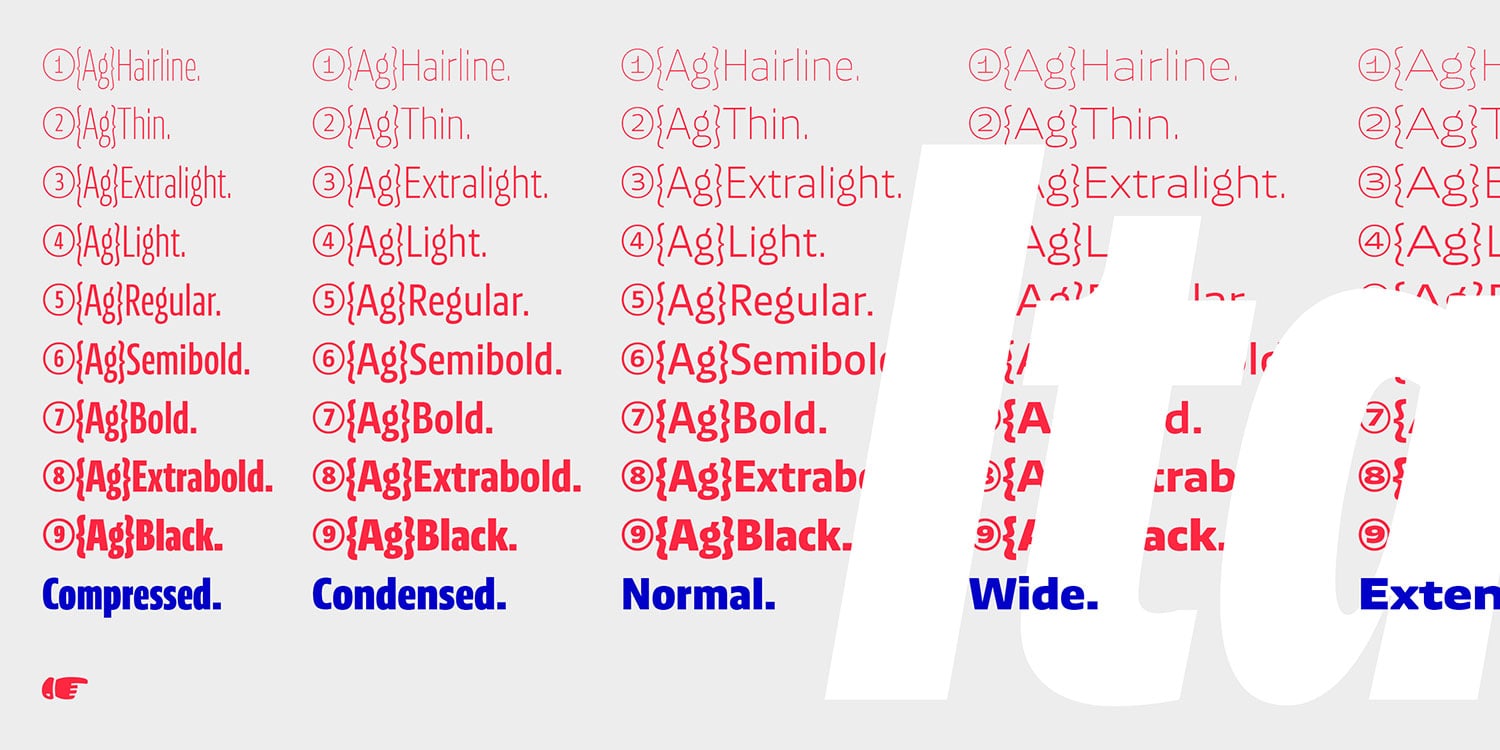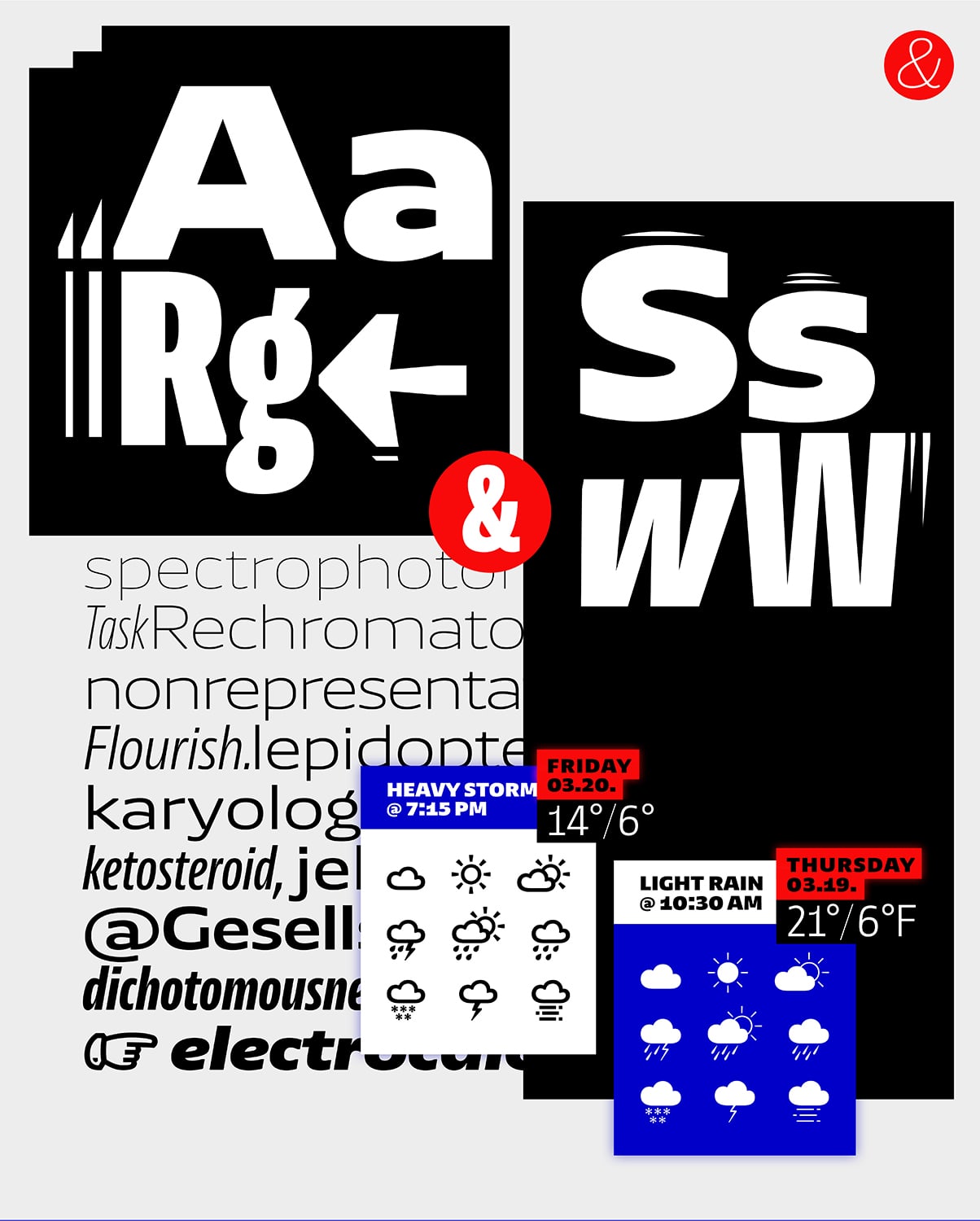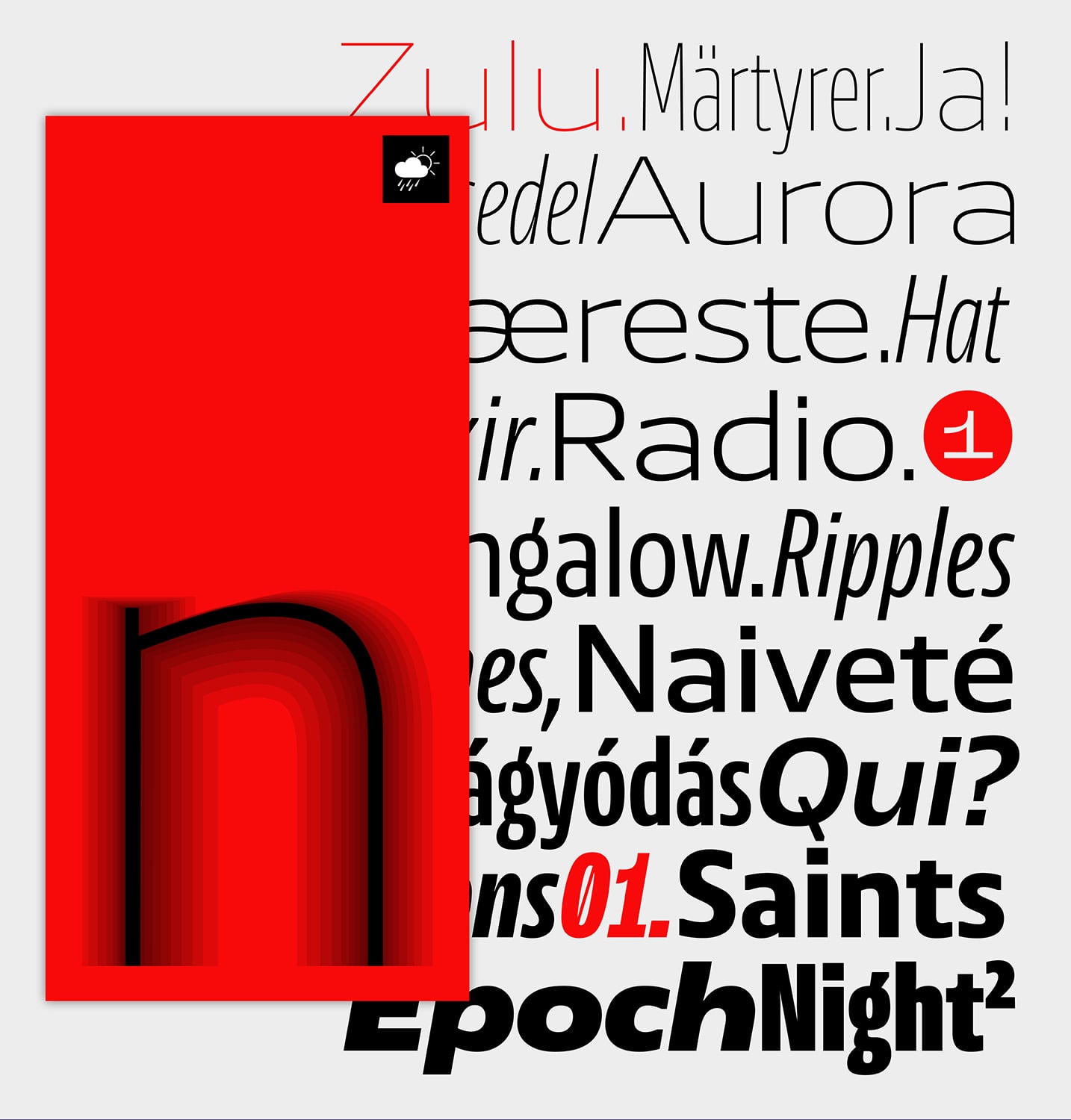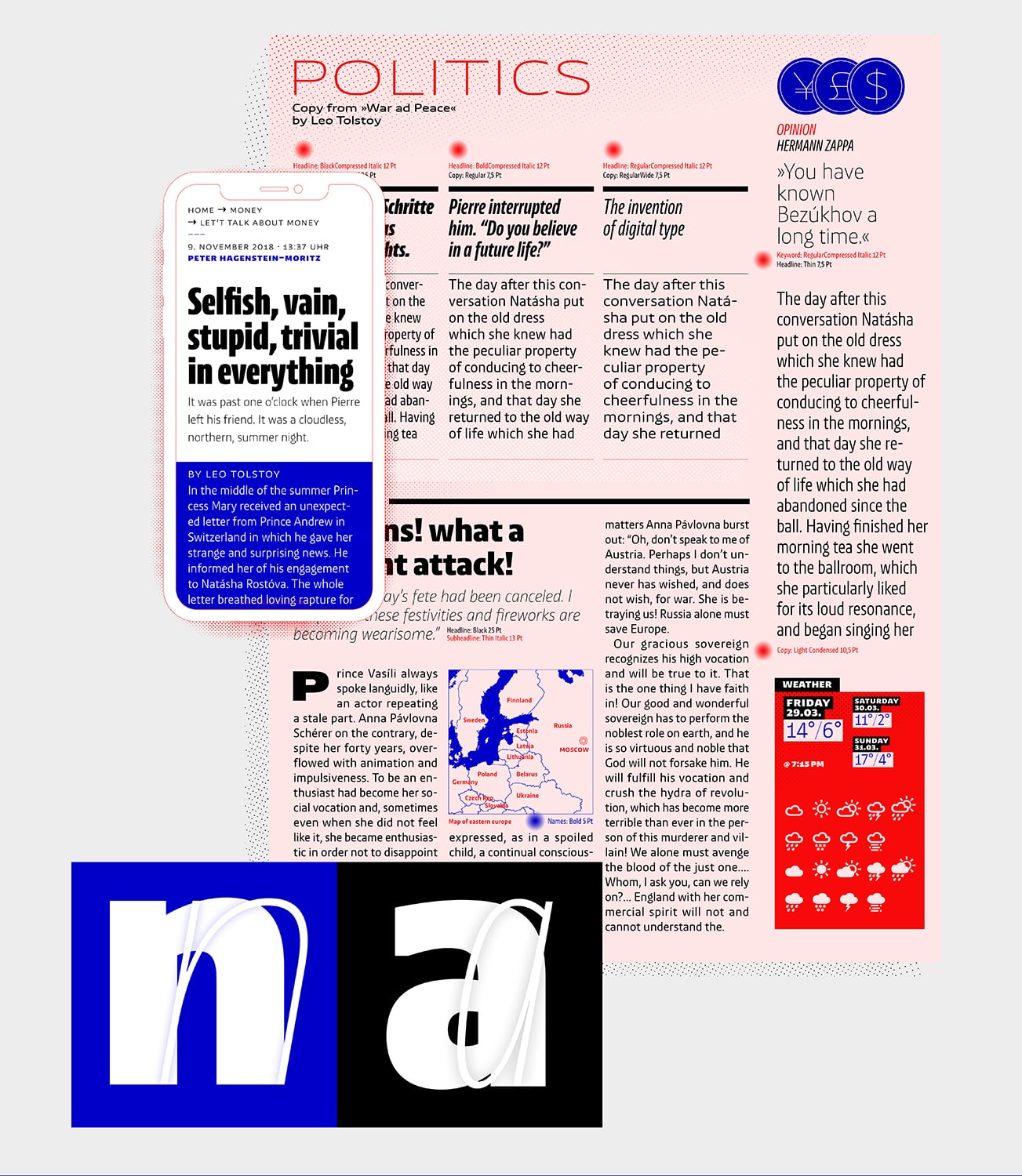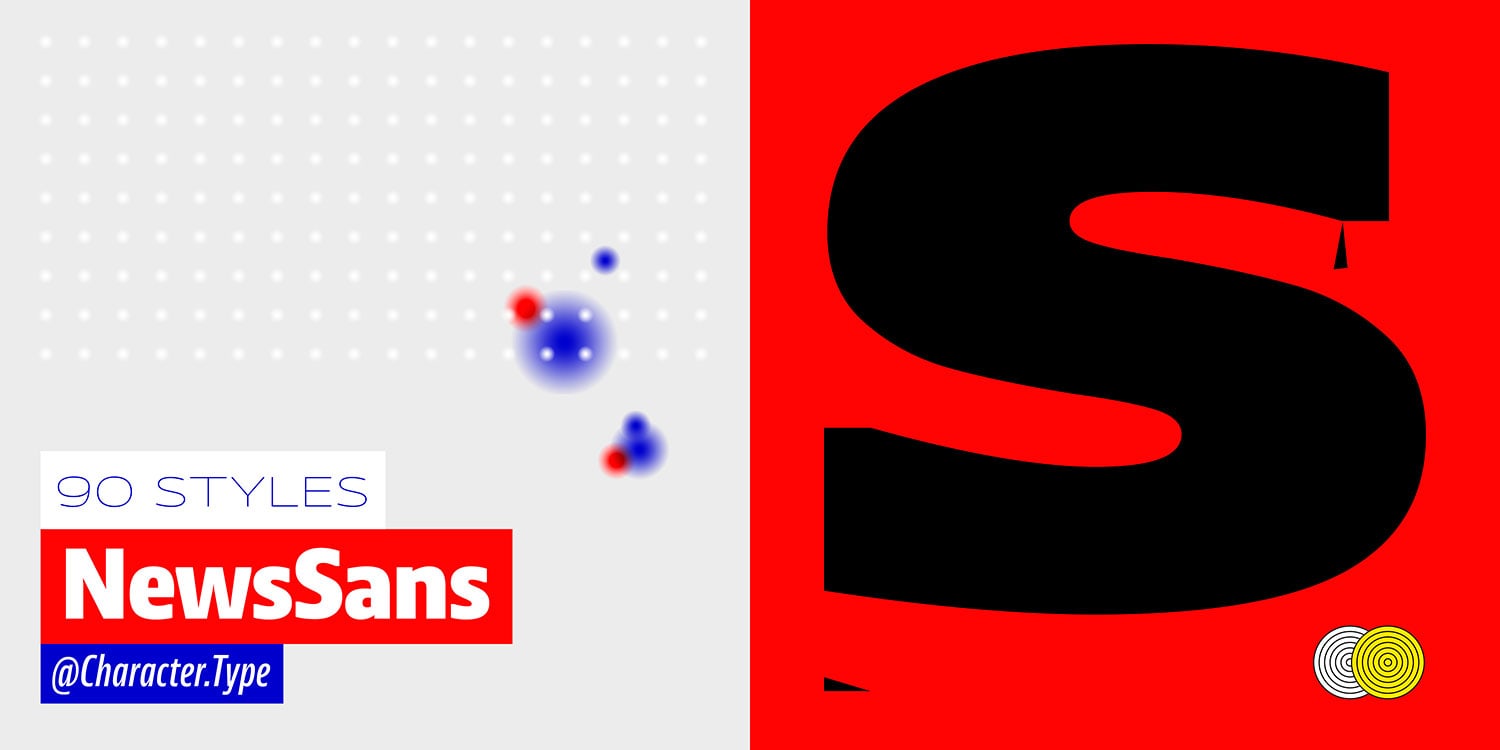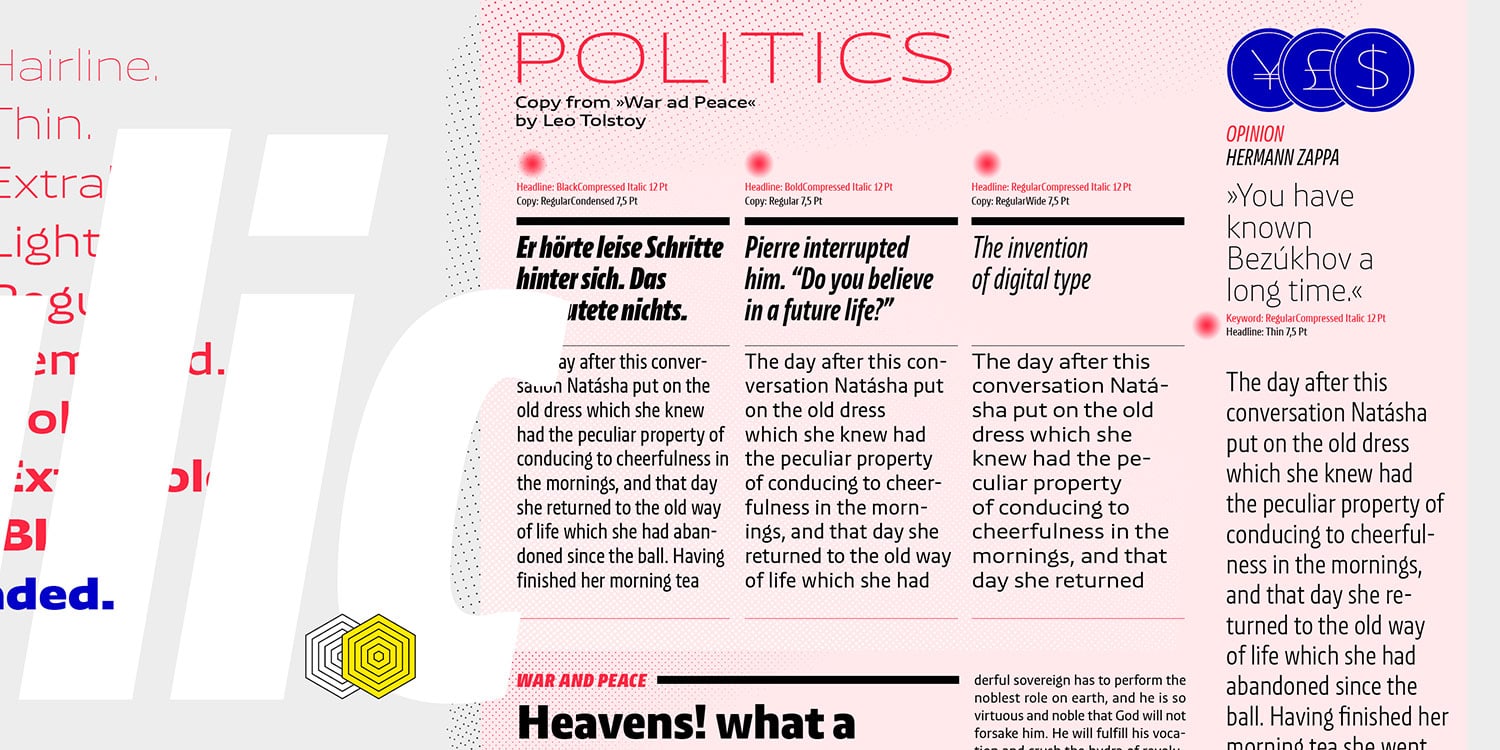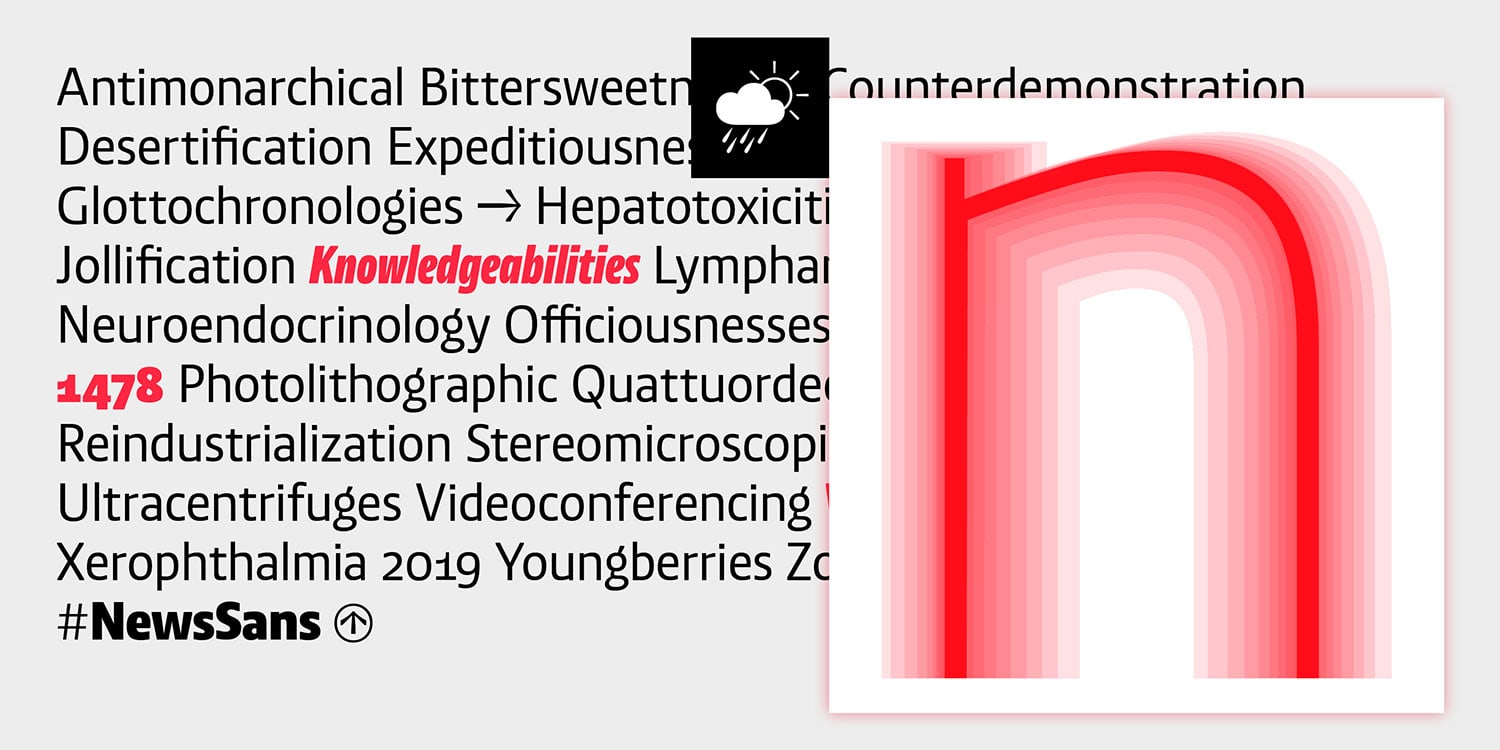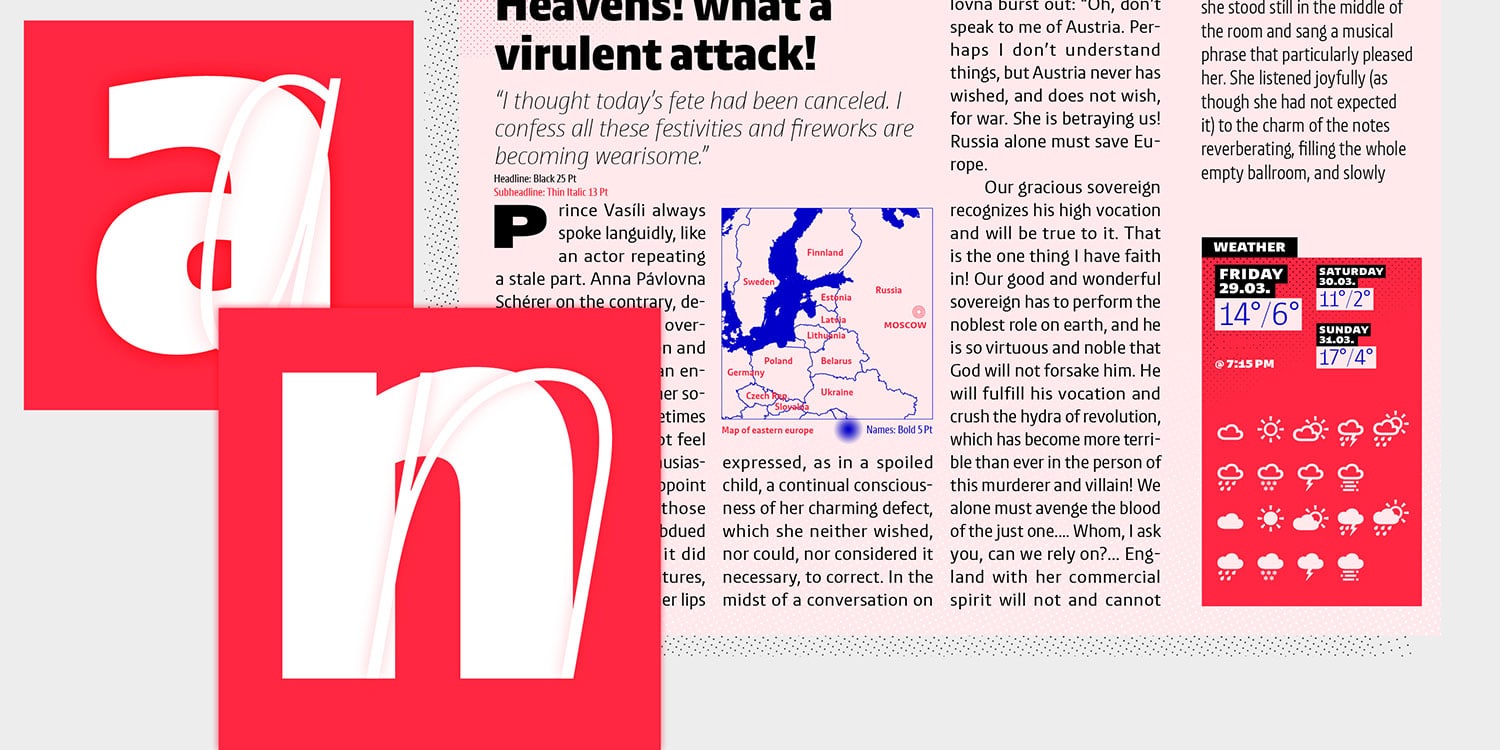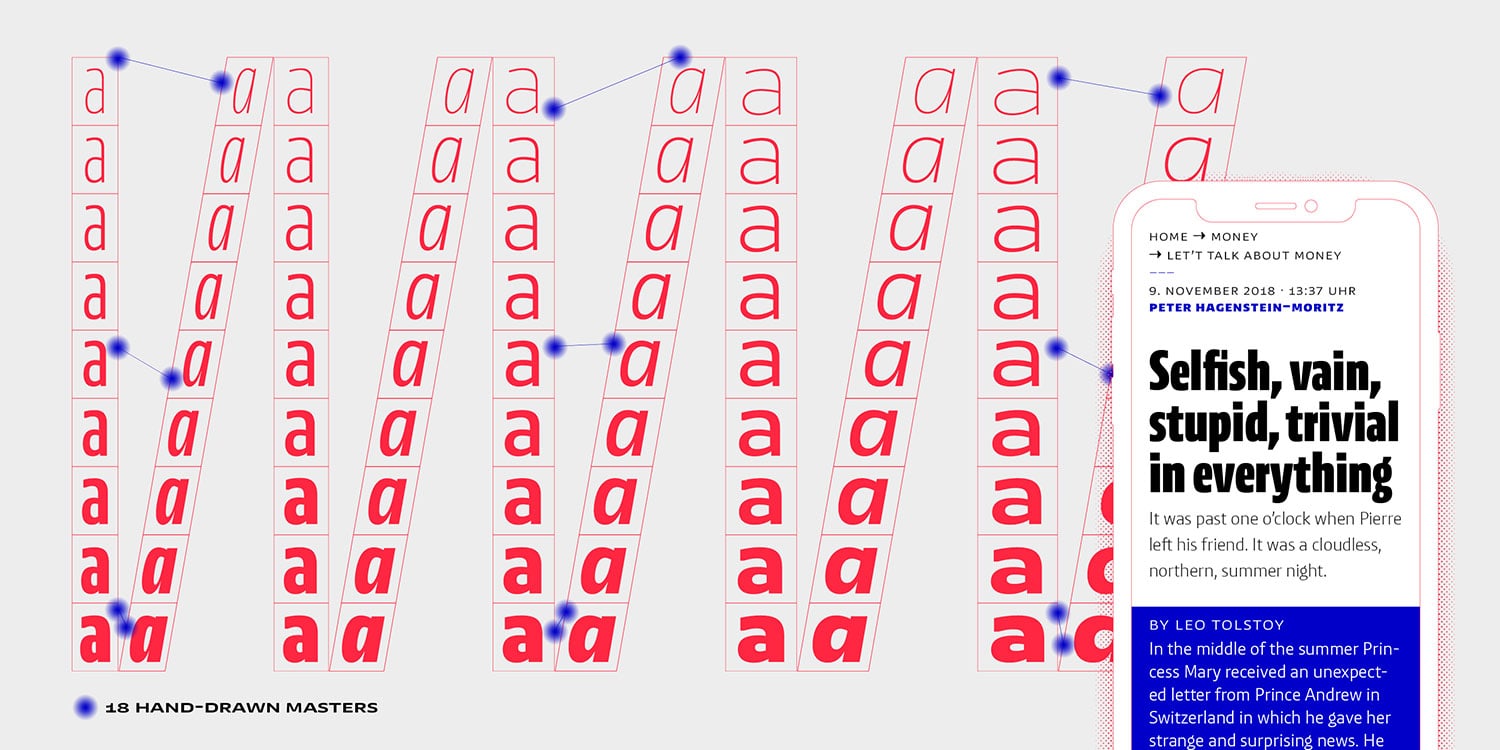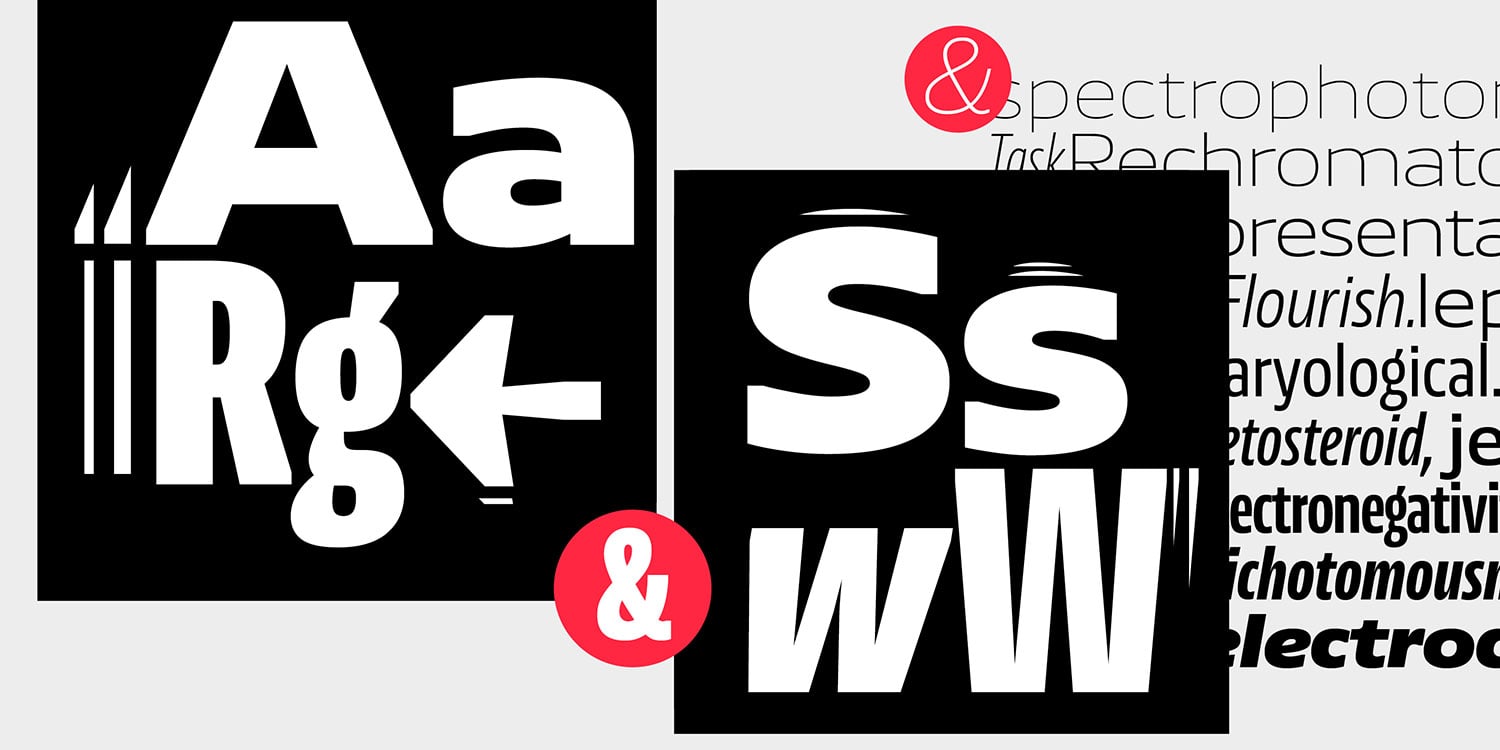
Character Type designed New Sans Typeface. »NewsSans« is a multi-tool typeface system incorporating no fewer than 90 styles. It was designed to allow a maximum range of visual shades when creating a typographic look, effortlessly ranging from loud and expressive, to subtle and reserved. The large x-height combined with low ascenders and descenders allows for tight and efficient designs. All sharp corners were trimmed off to add character and a nuance of extra space. NewsSans’ strokes link humanist curves with ‘American Grotesque’ details and solid square stems. The system contains nine weights from hairline to black, and five widths from compressed to extended, each accompanied by a proper italic.
NewsSans was hand hinted for optimal screen performance. Each font contains more than 700 glyphs and all kinds of OpenType features like small caps, several numeral options and ligatures.